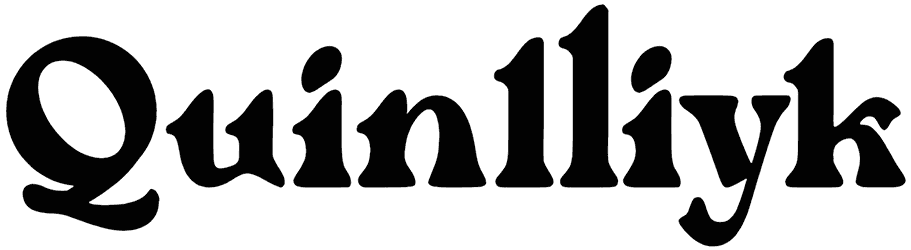
Quinlliyk Font
If you are looking for a way to display your design in an attractive, classic, and vintage way, this item can be a good help. Quinlliyk is a serif font with smooth and unique serif letters that could make your layout more ravishing. There aren’t many punctuation marks, but Quinlliyk font would be an apt choice for posters, movies, branding, and so on.